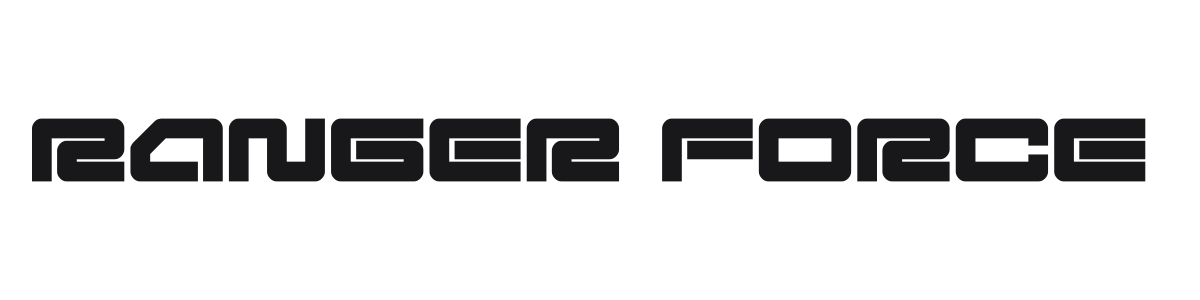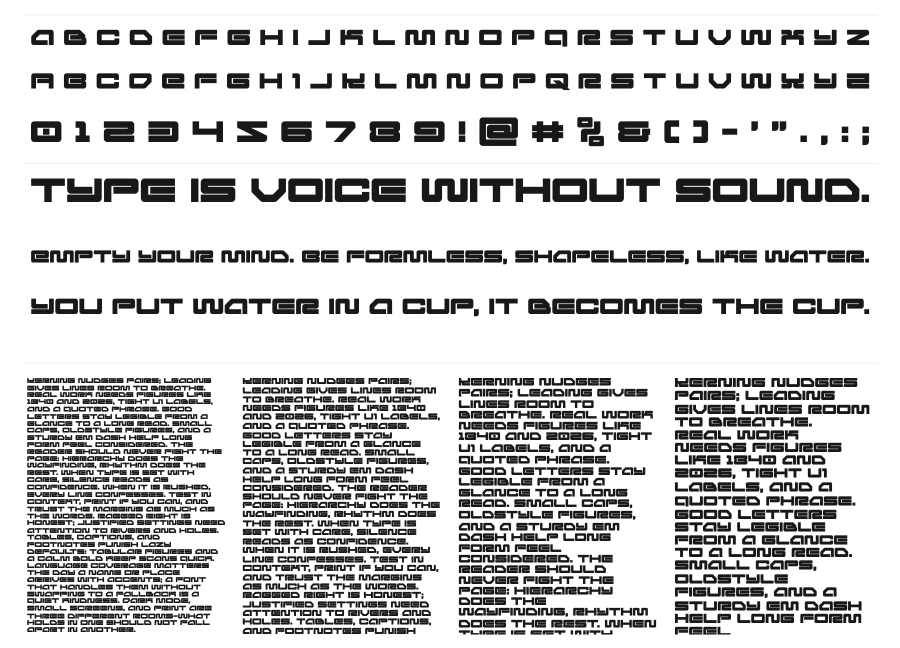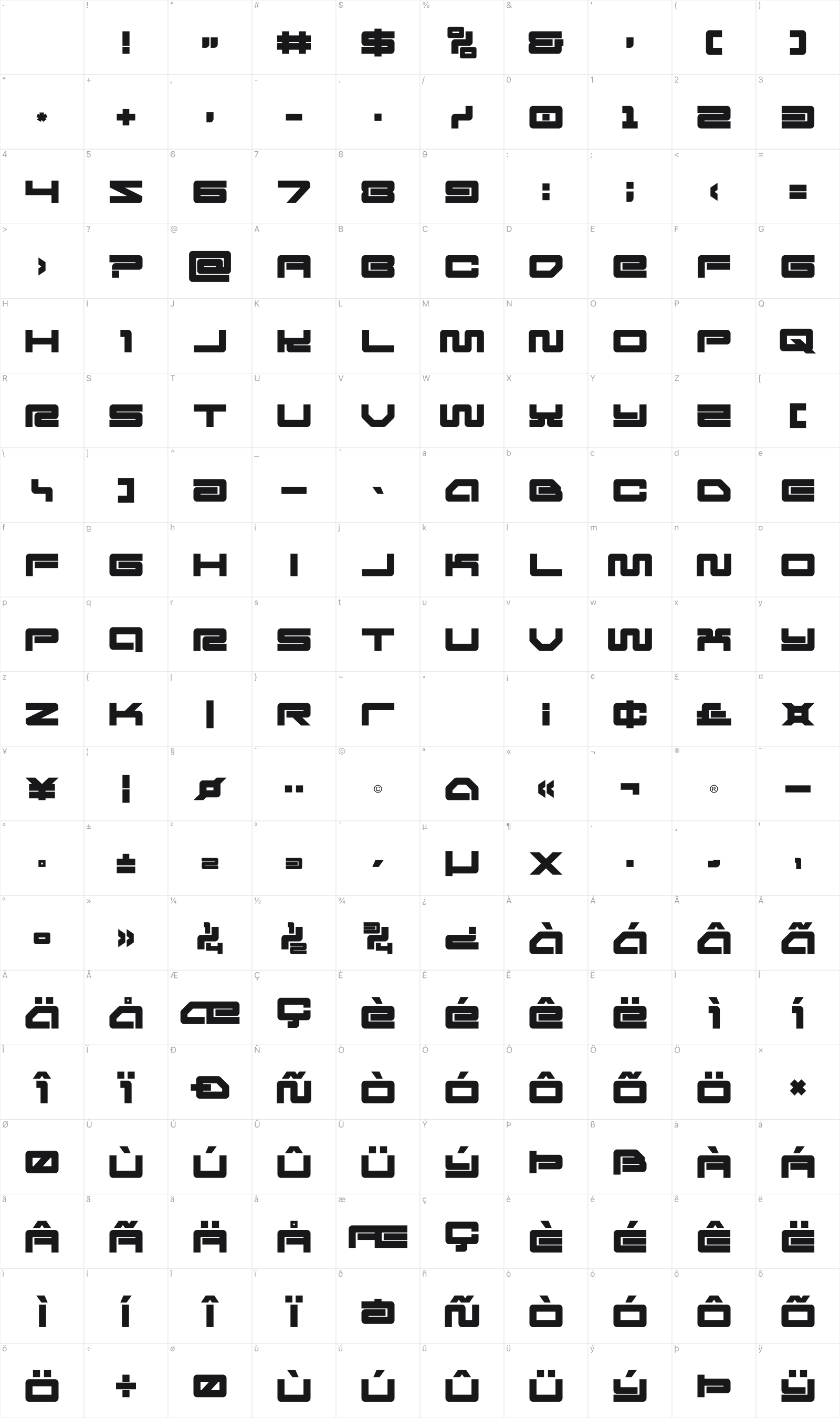
Ranger Force
Ranger Force is a heavy square-geometric techno font with thick, blocky characters and clipped rounded corners that give it a military-meets-sci-fi edge. The near-monoweight construction and wide stance make it read instantly at large sizes, with a raw mechanical authority that suits action-heavy contexts. It comes in 19 variants including 3D, halftone, laser, and condensed versions.